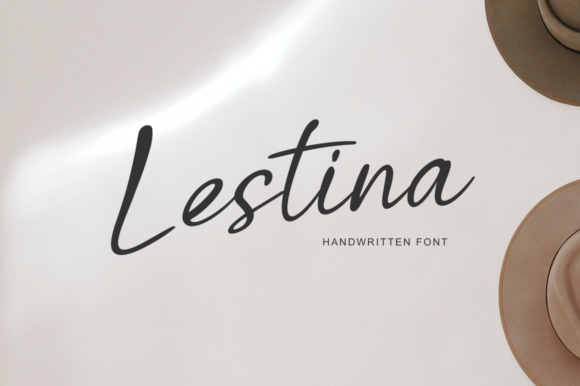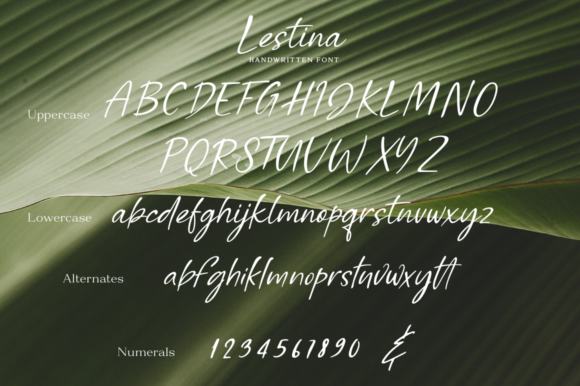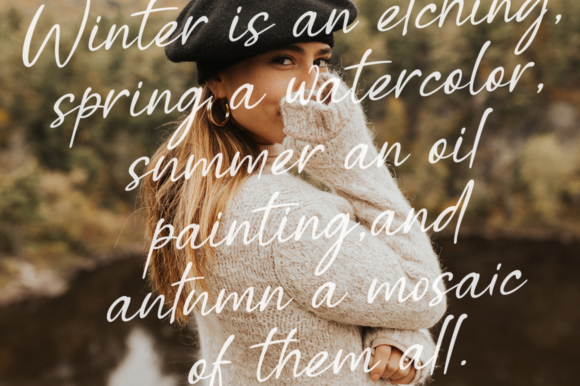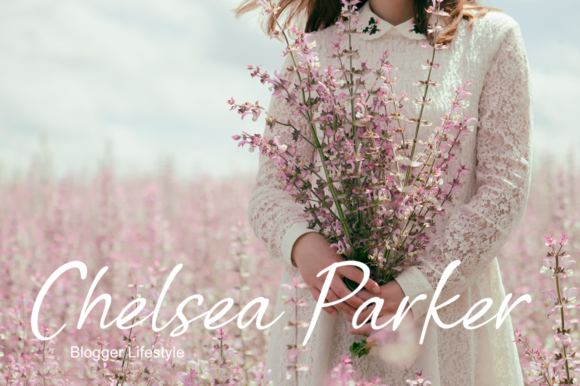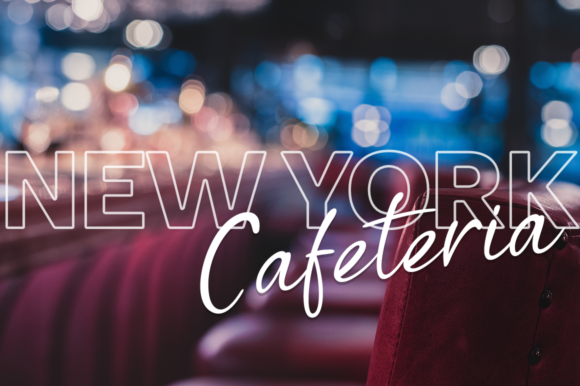
About Lestina Font
Lestina is a beautiful and elegant handwritten font. You can use it to create logo or templates, invitations, blog, branding, marketing, book covers, magazines, advertising, stationery, logo design and much more.